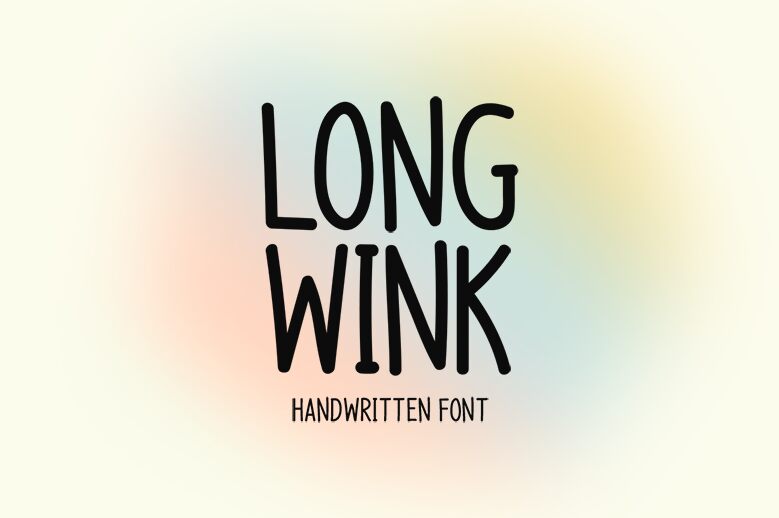
Long Wink
Long Wink is a captivating handwritten font that exudes a sense of whimsy and personality. Its bold, sweeping strokes and playful, condensed form create a striking visual impact, making it an alluring choice for branding, editorial design, and creative projects.
The fluid, expressive lines evoke a handcrafted, artisanal aesthetic, while the condensed width lends a sense of dynamism and energy to the letterforms. This font's unique character and versatility make it an ideal selection for a wide range of applications, from sleek and modern logotypes to eye-catching headlines and vibrant promotional materials.
Whether used in isolation or as part of a harmonious typographic pairing, Long Wink's distinctive personality is sure to leave a lasting impression on viewers.